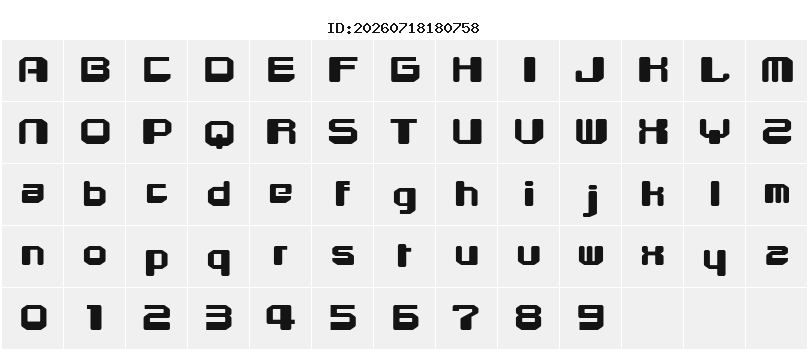
• Font Name: Cube2000
Cube2000.ttf is a modern, elegant sans-serif font designed for ultimate readability and visual harmony. Perfect for branding, headlines, web design, and print materials.